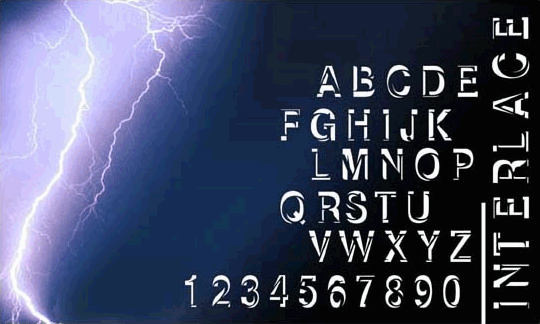
The typeface
presented below
is referred to as the 'Interlace' font. It combines the san serif
(no serifs) Helvetica Bold font with the serif Times font
occupying
the empty space. The name of 'Interlace' implies the union of the two
component
typefaces. It is highlighted with a lightning bolt emblazoned on the
night
sky, representative of the sharp contrast of the font itself.